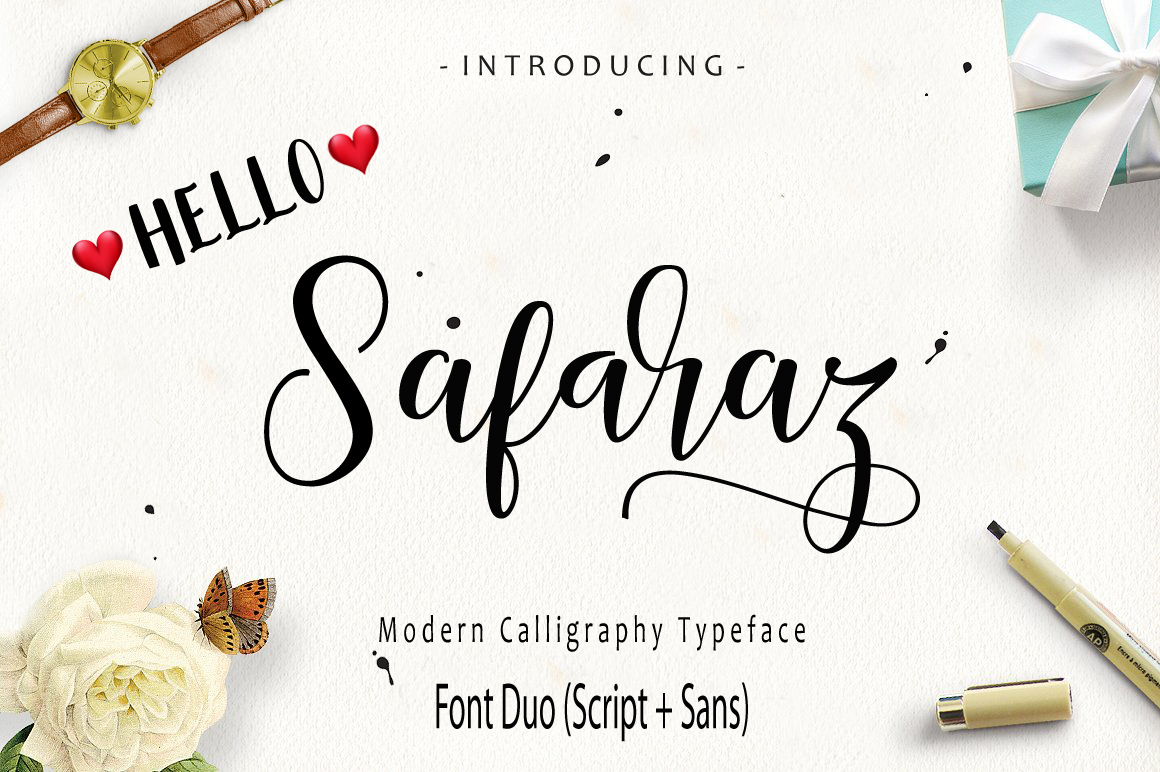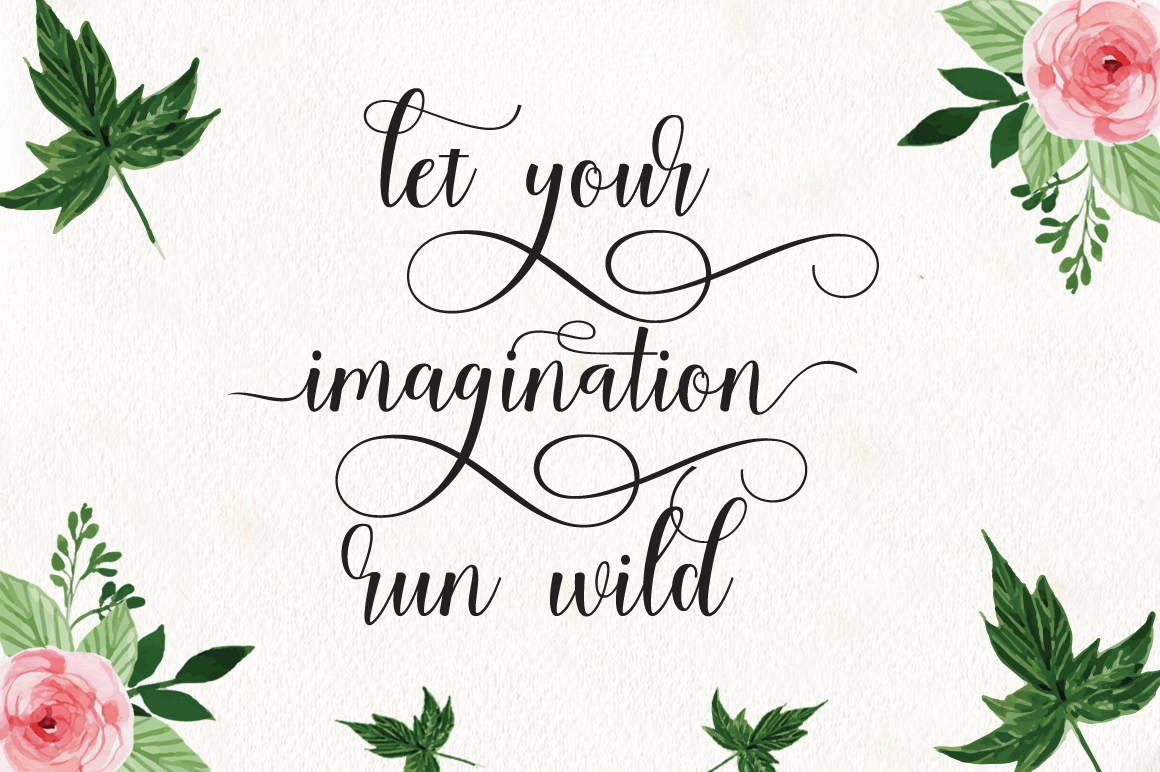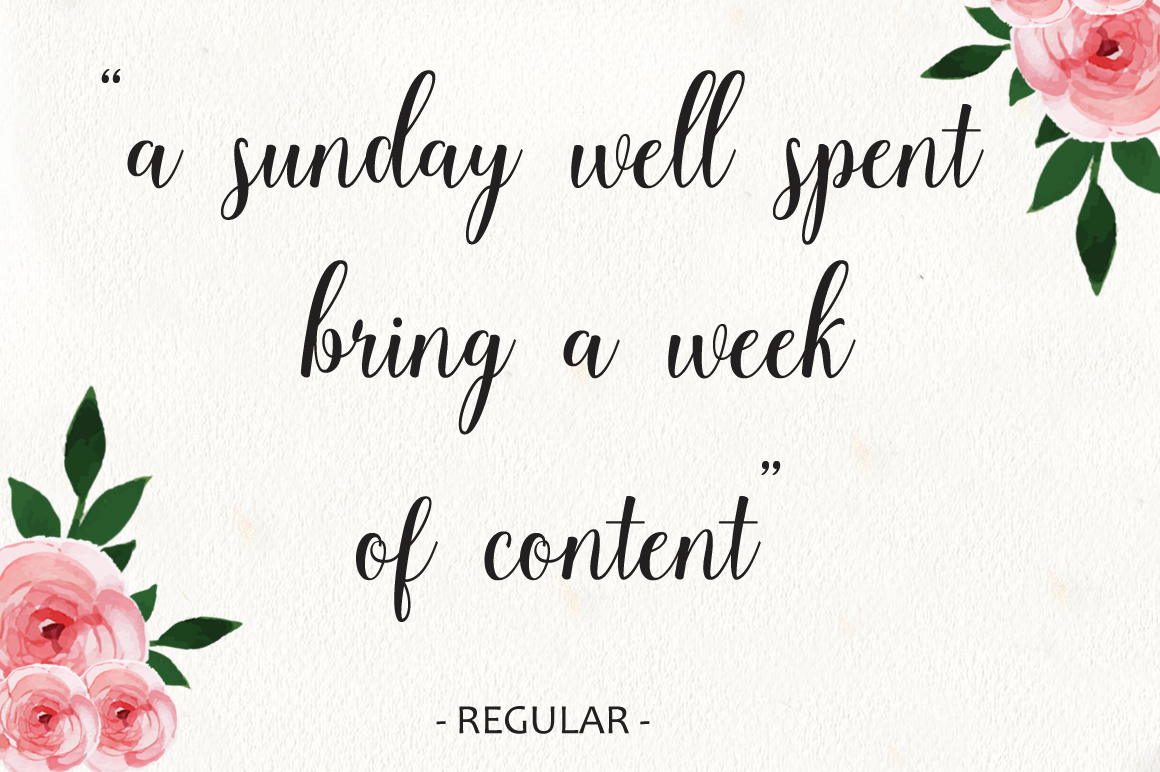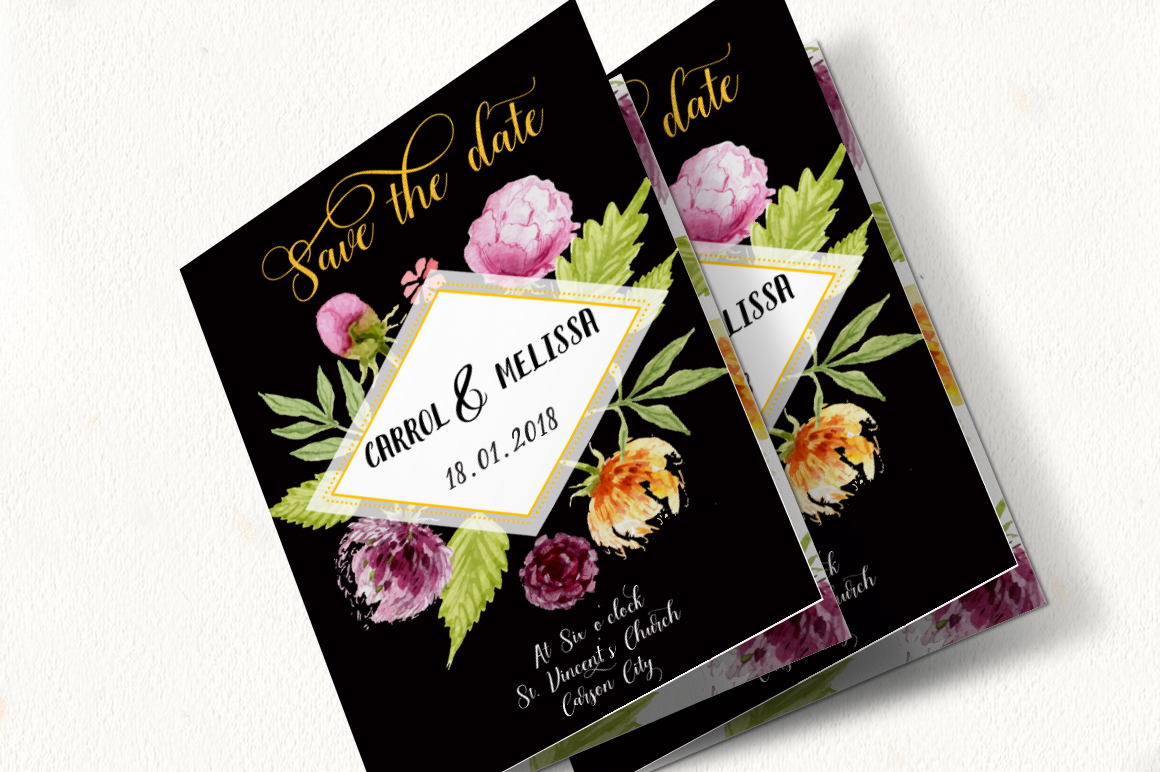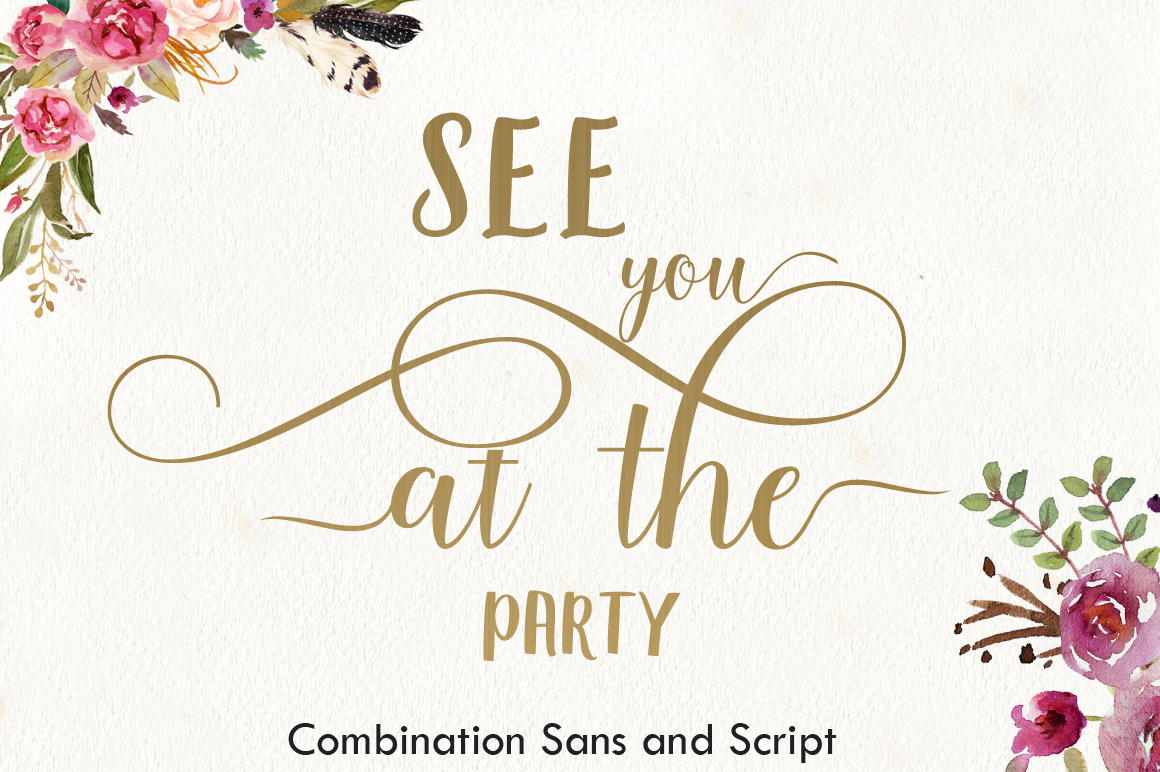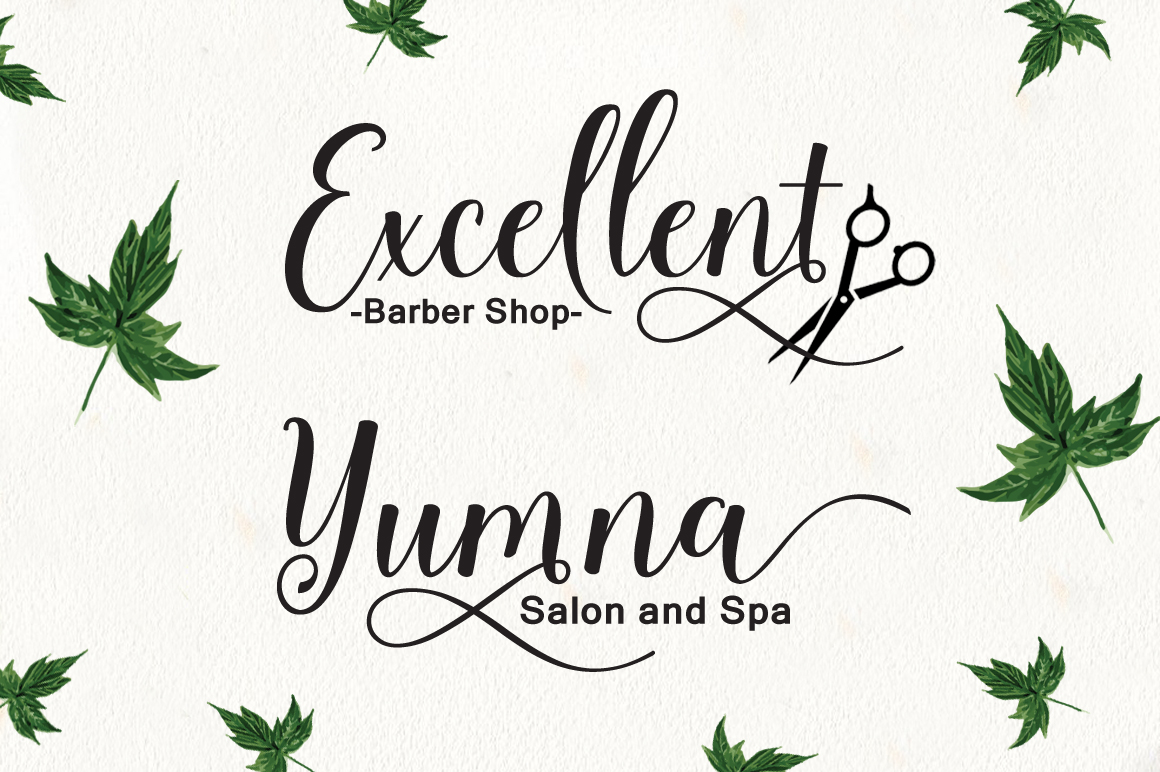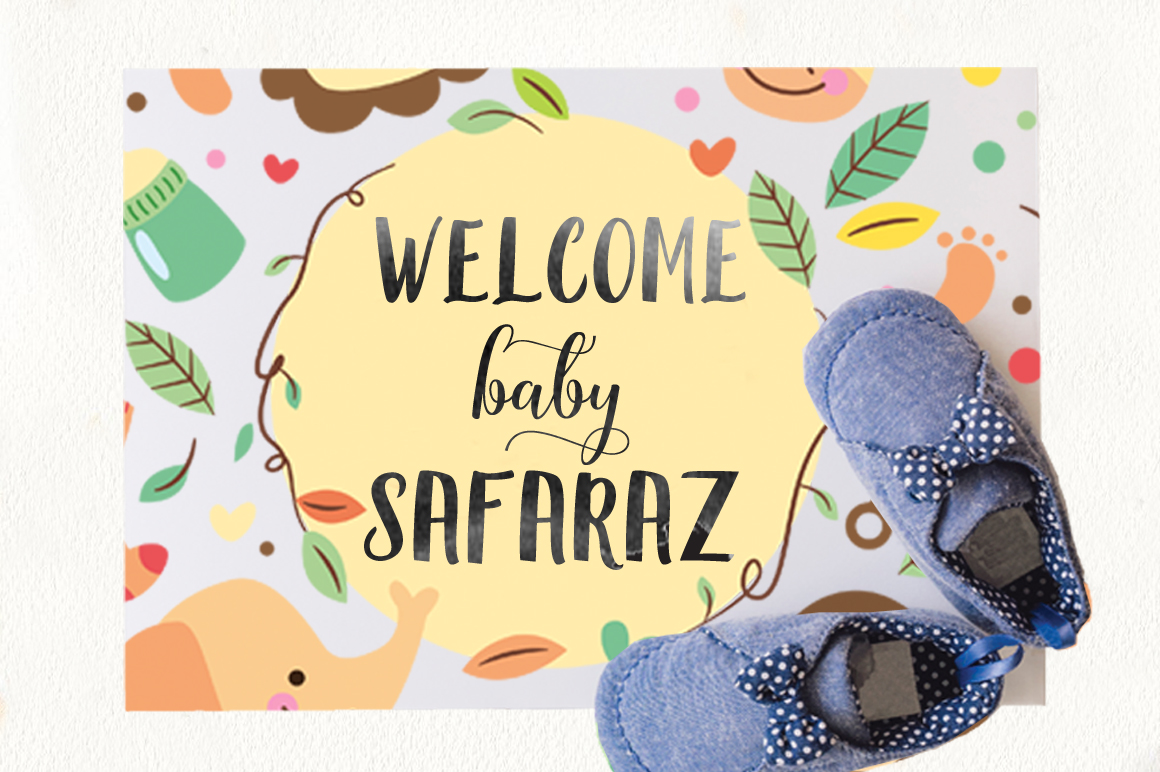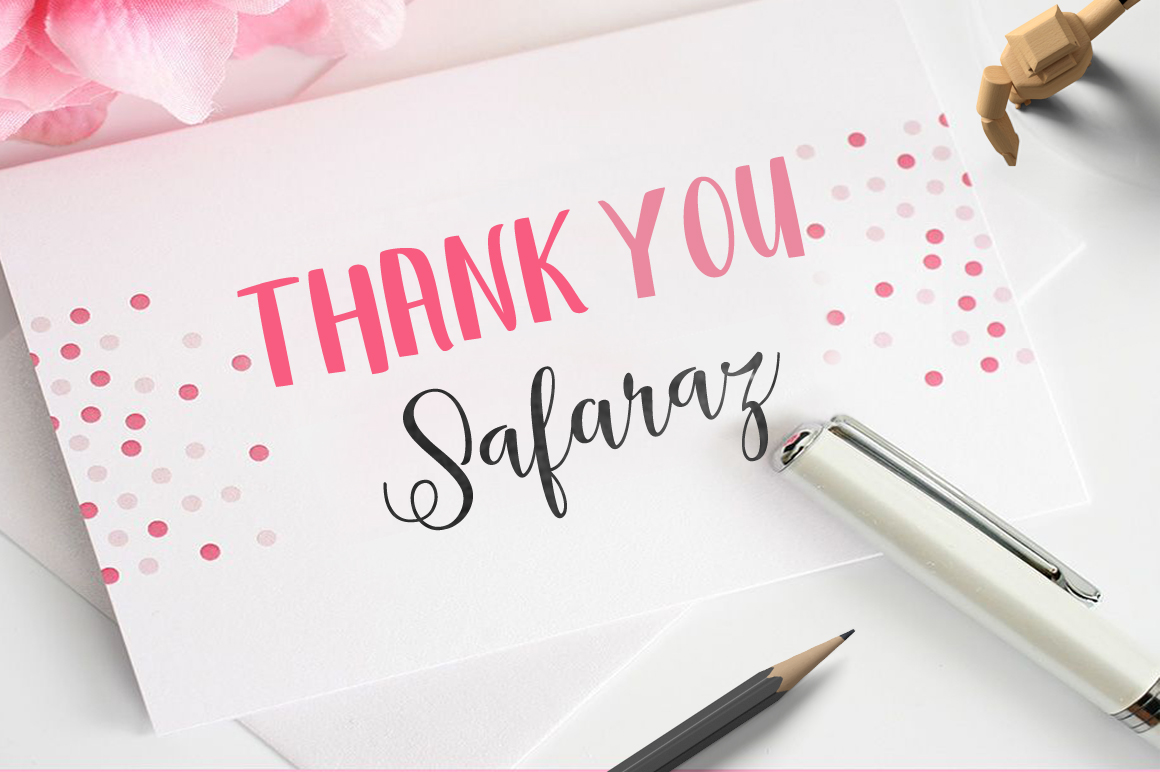
Safaraz Font
About Safaraz Font
Safaraz is a modern-style script duo. It comes with Safaraz Script & Safaraz Sans.
The fact that you get Safaraz as a script and a serif, will allow you to use the fonts in a huge range of projects.